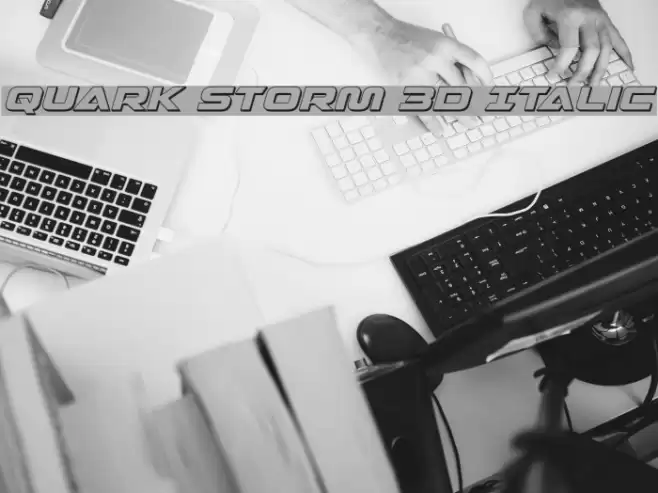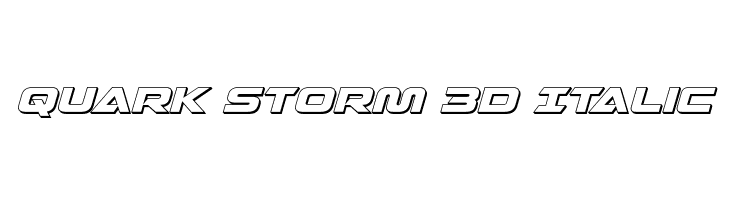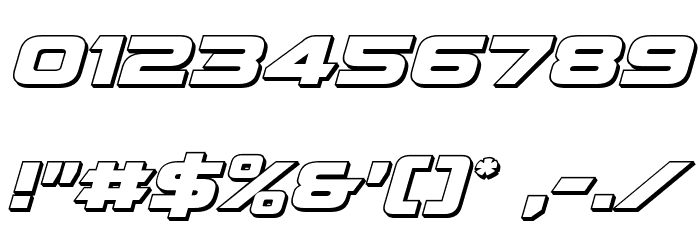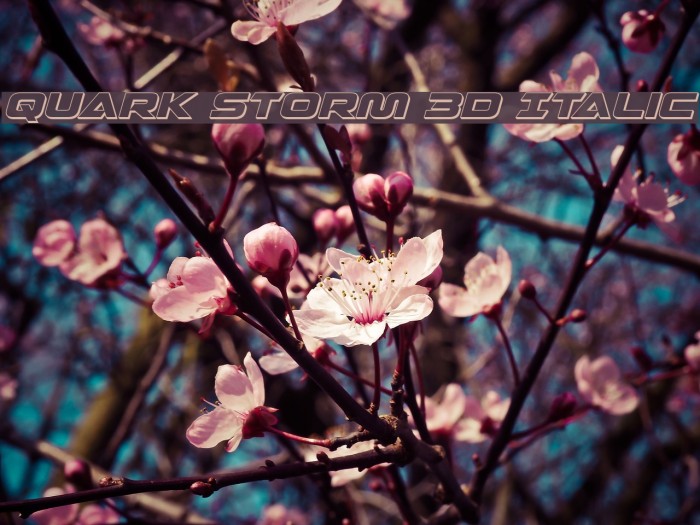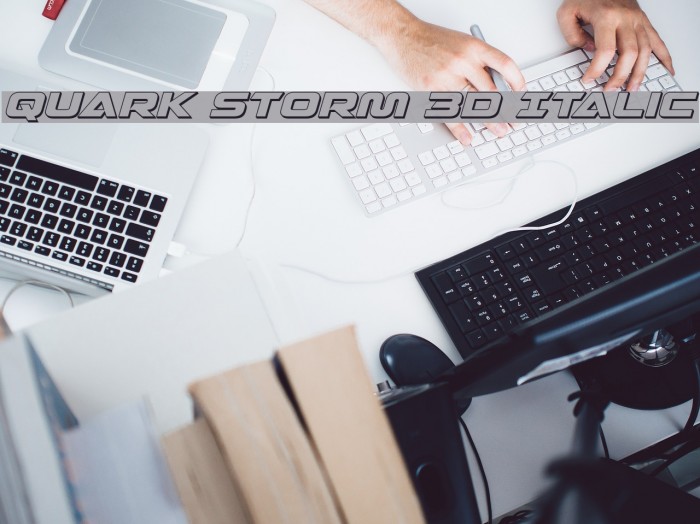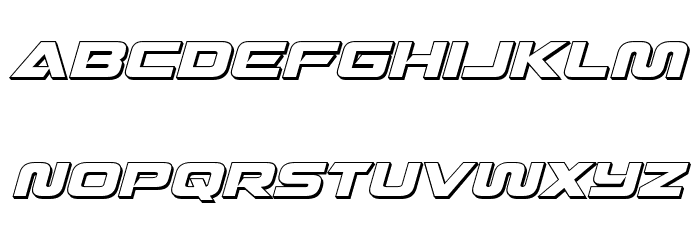
Quark Storm 3D Italic Font
Quark Storm 3D Italic Description
This font features a dynamic and futuristic design with a 3D effect that gives it a bold and impactful appearance. The characters are italicized, adding a sense of motion and speed. The outlines are thick, creating a strong contrast against the inner space of each letter. The angular and geometric shapes of the letters contribute to a modern and tech-inspired aesthetic. This style is particularly eye-catching and suitable for projects that require a sense of innovation and forward-thinking. The font maintains a consistent width and spacing, ensuring readability while still delivering a unique visual impact.
A dynamic 3D italic font with a futuristic and bold design from Uncategorized fonts.
- Proposed Projects: Ideal for technology branding, video game titles, futuristic posters, and sci-fi themed events.